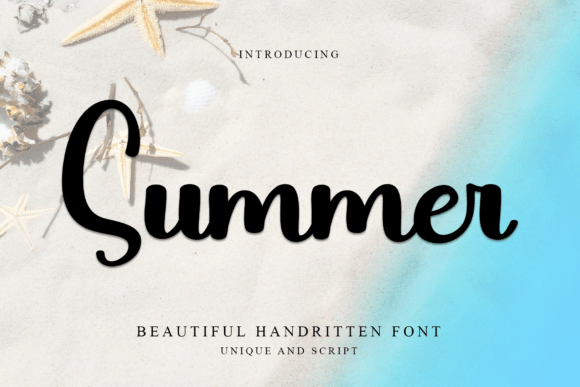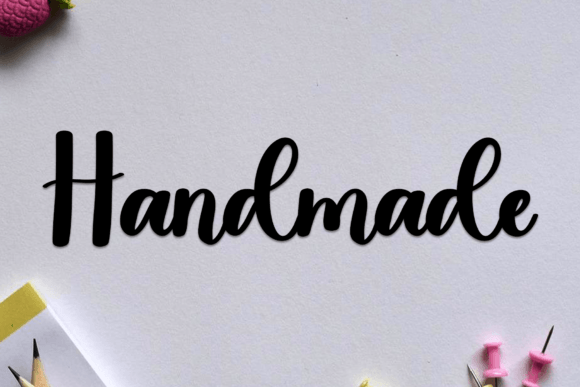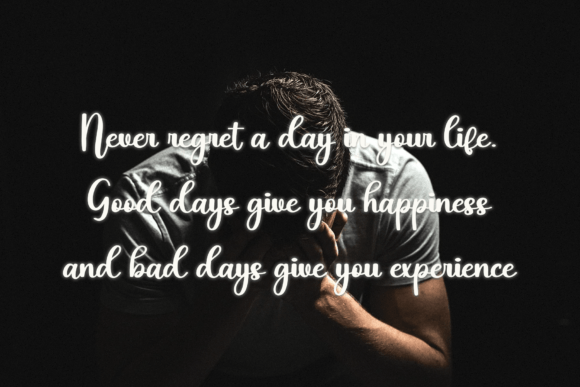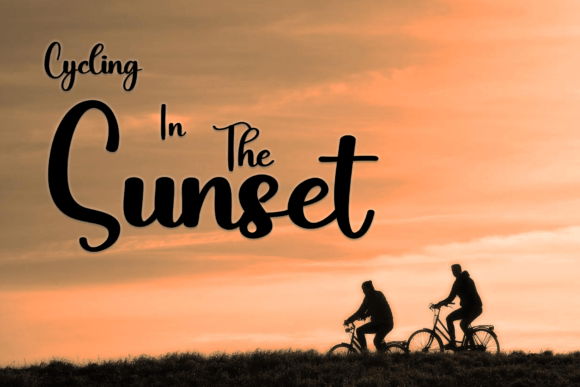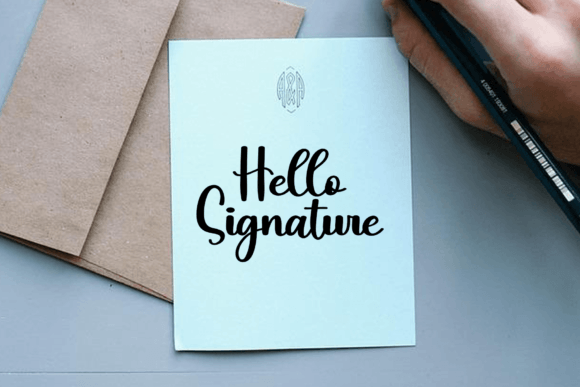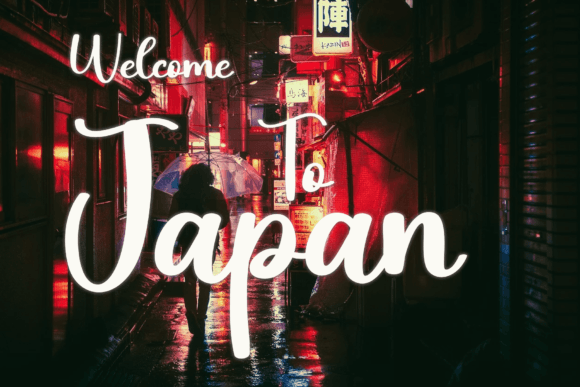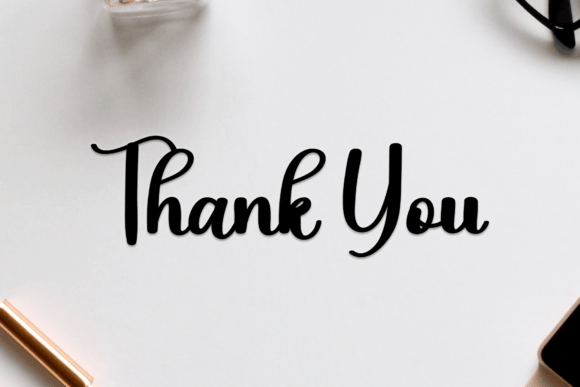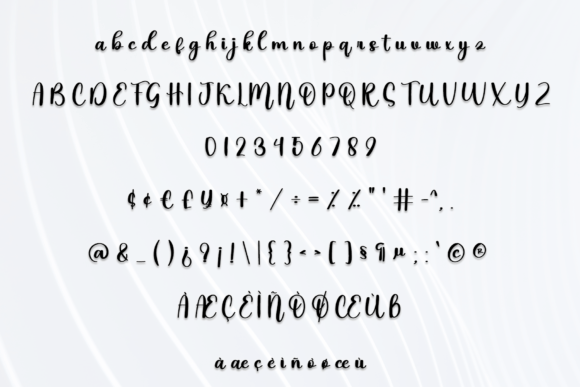
Summer Font
About Summer Font
“Summer Font: Delicate Handwritten Elegance for Cool and Unique Designs
Introducing Summer, a delicate handwritten font meticulously crafted to bring a touch of elegance to your cool and unique designs. Carefully designed for versatility, this font can be used to write letters, invitations, food product labels, titles, and more. Let Summer be the warm breeze that enhances the beauty of your creative projects.
Beyond being a font, Summer is a design tool that adds a delicate touch to your projects. Its carefully crafted strokes give each letter a unique and cool vibe, making it an ideal choice for various design applications that demand a blend of elegance and uniqueness.
The versatility of Summer shines through in its ability to enhance the visual appeal of diverse projects. Whether you’re working on digital graphics or tangible items, Summer adapts effortlessly to elevate the aesthetics of your designs.
For writing letters and invitations, Summer becomes a stylistic choice, adding a touch of delicacy and uniqueness to your text. The font’s delicate handwritten elegance is perfect for creating visually appealing and emotionally engaging content.
In branding projects, Summer serves as a distinctive element, contributing to memorable and stylish brand identities. Its delicate handwritten style adds a personal and authentic touch to your business image.
Summer’s versatility extends to various print materials, making it suitable for food product labels, titles, and more. The font’s unique character enhances the overall aesthetics, creating a visually pleasing experience.
In conclusion, Summer is more than just a font; it’s a design companion that brings delicate handwritten elegance to your creative toolkit. Let Summer be the brushstroke that enhances the beauty of your projects. Embrace the versatility and cool, unique charm of Summer, and watch as it transforms your ideas into visually enchanting experiences.”